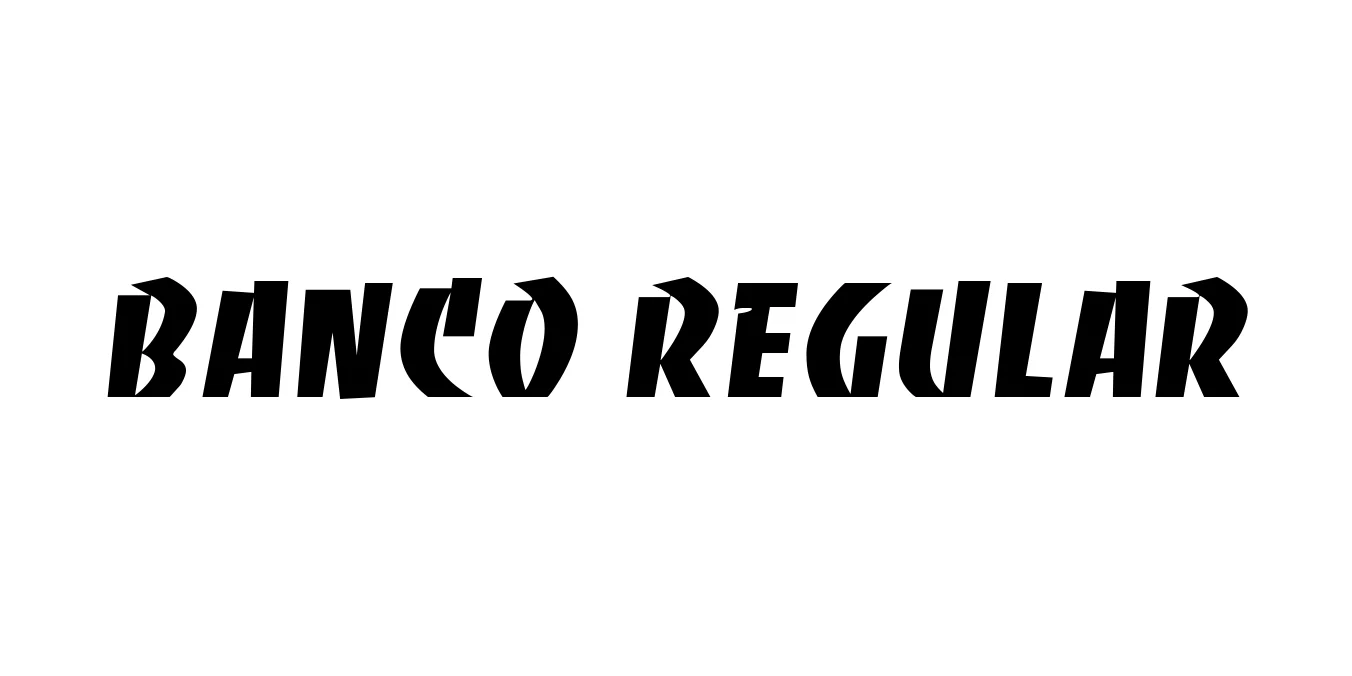
Banco Regular
Designed by Roger Excoffon
| Font Name | Banco |
| Designer | Roger Excoffon |
Banco Regular is an iconic display typeface designed in 1951 by the renowned French graphic designer Roger Excoffon for the Fonderie Olive. Characterized by its heavy, slanted, and expressive letterforms, Banco was originally created as an uppercase-only face intended for bold storefront signage and advertisement headers in post-war France. The design features sharp, energetic strokes that mimic the speed of hand-painted brush lettering, giving it a distinct artisan feel.
While it found its origins in traditional European signage, Banco achieved a secondary wave of global fame through its association with skateboard culture, most notably serving as the foundation for the Thrasher Magazine logo. Its aggressive yet fluid silhouette makes it a favorite for designers looking to convey power, rebellion, and retro-urban aesthetics. Today, it remains a staple in the worlds of streetwear, editorial design, and high-impact branding projects.
Banco Regular Best Uses
Creating high-impact, recognizable wordmarks for lifestyle and sports brands.
Commanding attention in large-scale event promotion and vintage-style advertisements.
Ideal for t-shirt graphics and streetwear labels seeking a gritty, classic look.
Using as heavy-weight headers or title sequences in magazines and zines.